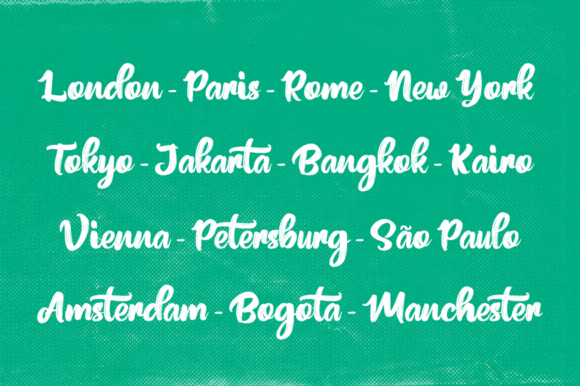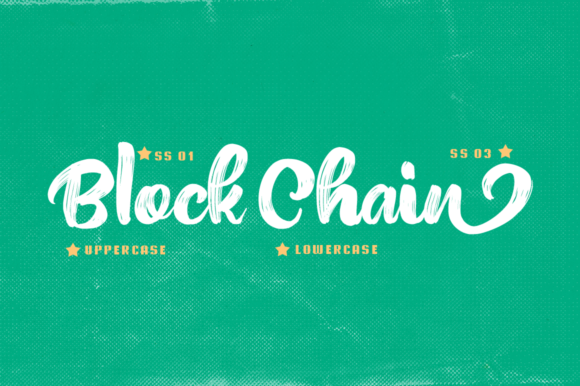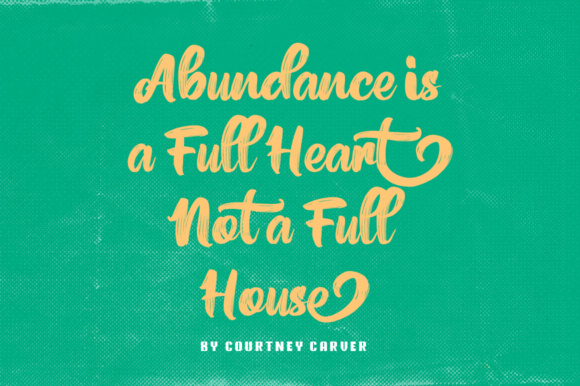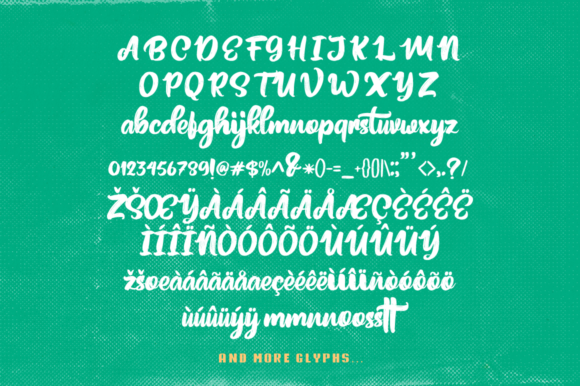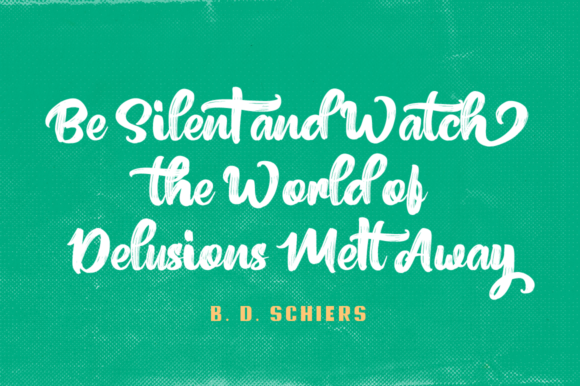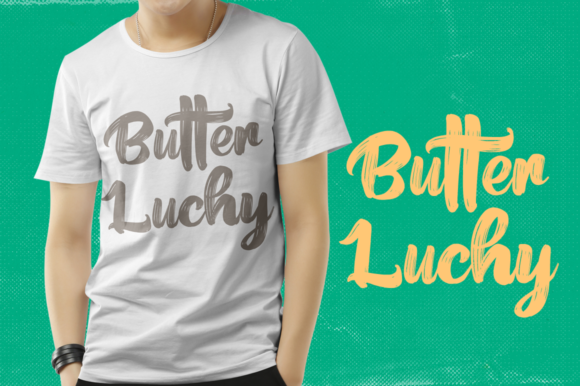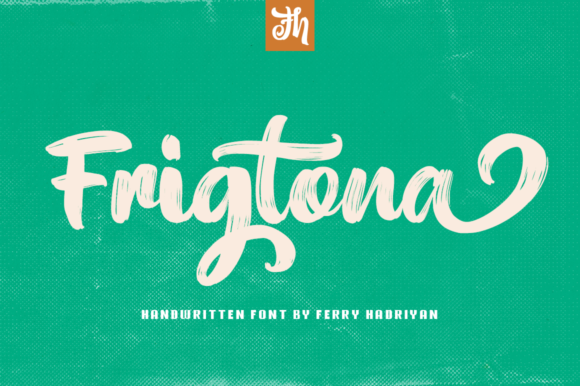
Introducing Frigtona Font: The Handwritten Gem for DIY Projects
Are you a designer, crafter, or DIY enthusiast looking for a unique and authentic font to bring your projects to life? Look no further than Frigtona Font, a stunning handwritten font that combines the elegance of a brush pen and pencil to create a truly endearing and genuine look.
The Story Behind Frigtona Font
Frigtona Font is the result of a beautiful pairing of a brush pen and pencil, carefully crafted to create a one-of-a-kind handwritten font. The font’s creator aimed to capture the imperfections and uniqueness of handwriting, making Frigtona Font perfect for DIY projects, crafts, and designs that require a personal touch.
What Makes Frigtona Font Special?
Frigtona Font stands out from other fonts due to its distinctive characteristics, including:
- Authentic look: Frigtona Font boasts an incredibly authentic look, thanks to its unique blend of brush pen and pencil strokes.
- Handwritten charm: The font exudes a warm, friendly, and inviting feel, making it perfect for projects that require a personal touch.
- Versatility: Frigtona Font is suitable for a wide range of DIY projects, from crafting and scrapbooking to graphic design and digital art.
- Ease of use: The font is easy to read and use, making it accessible to designers and crafters of all skill levels.
Using Frigtona Font in DIY Projects
Frigtona Font is an excellent choice for various DIY projects, including:
- Scrapbooking: Add a personal touch to your scrapbook pages with Frigtona Font, perfect for journaling, captions, and titles.
- Crafting: Use Frigtona Font to create unique and eye-catching titles, labels, and signs for your craft projects.
- Graphic design: Incorporate Frigtona Font into your graphic design projects, such as brochures, flyers, and posters, to add a touch of warmth and personality.
- Digital art: Frigtona Font is also suitable for digital art, including illustrations, comics, and animations.
Tips for Getting the Most Out of Frigtona Font
To maximize the potential of Frigtona Font, consider the following tips:
- Experiment with colors: Frigtona Font looks great in various colors, so don’t be afraid to experiment and find the perfect hue for your project.
- Mix and match: Combine Frigtona Font with other fonts to create a unique and visually appealing design.
- Pay attention to spacing: Adjust the spacing between letters and words to create a more authentic, handwritten look.
Frigtona Font is a one-of-a-kind handwritten font that can elevate your DIY projects to the next level. Its unique blend of brush pen and pencil strokes creates an authentic and endearing look that’s sure to capture the hearts of designers, crafters, and DIY enthusiasts alike. With its versatility, ease of use, and charming personality, Frigtona Font is an excellent addition to any design or crafting toolkit.